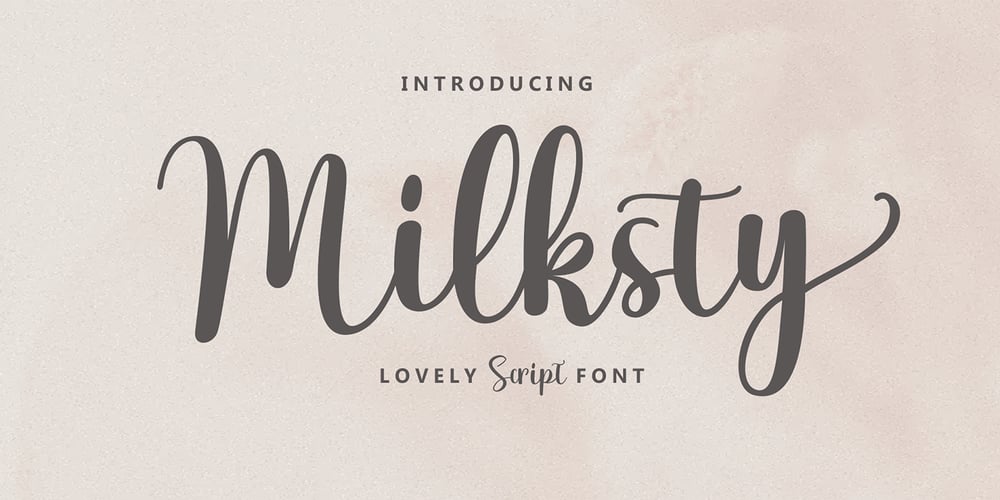
Milksty Font Family was designed by Yusliana M Isa and published by Gian Studio. Milksty contains 1 styles and family package options. The Milksty font style comes with great character. Ideal for logos, name tags, handwritten quotes, product packaging, merchandise, social media and greeting cards. It contains a complete set of lowercase and uppercase letters, a wide variety of punctuation marks, numbers, and supports multi-language. It is also easy for you to access this font because I have provided PUA unicode (font-specific code), with many alternative characters. This package is fully accessible to craftsmen or designers.